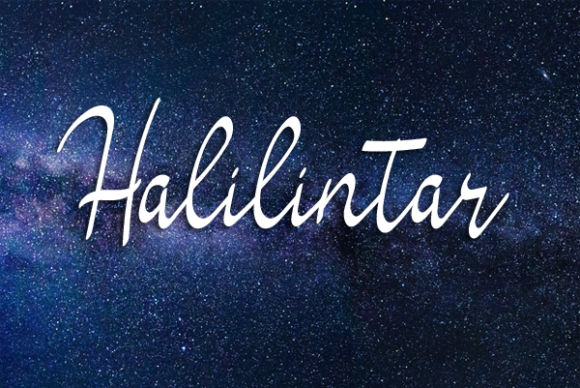
Halilintar Font
**Introducing Halilintar: The Font that Captivates with Grace and Style**
Embark on a typographic journey that will ignite your creativity and leave a lasting impression on your audience. Halilintar, a stunning lettered script font, is here to elevate your designs to new heights.
**Crafted for Timeless Elegance**
Each stroke of Halilintar exudes elegance and refinement. Its graceful curves and flowing lines will add a touch of sophistication to any project, from wedding invitations to branding materials. Let the timeless charm of Halilintar elevate your words and make your designs stand out from the crowd.
**Unleash Your Artistic Spirit**
Halilintar is not just a font; it's an invitation to unleash your artistic spirit. Whether you're a seasoned designer or just starting your creative exploration, this font will empower you to create stunning visuals that captivate and inspire.
**Perfect for a Myriad of Projects**
The versatility of Halilintar knows no bounds. From elegant wedding invitations to eye-catching social media posts, this font will transform your projects into works of art. Let Halilintar add a touch of grace to your:
- Wedding invitations
- Stationary art
- Social media posts
- Logo designs
- Brand identities
- Posters
- Flyers
**Inspired by the Echoes of History**
Halilintar draws inspiration from the bold and impactful posters of wartime. Its bold strokes and flowing lines evoke a sense of urgency and determination, making it the perfect choice for conveying messages that demand attention.
**Created with Passion and Precision**
Every curve and stroke of Halilintar has been meticulously crafted by the skilled designers at Alfa studio. Their passion for typography shines through in every detail, ensuring that this font meets the highest standards of quality and artistry.